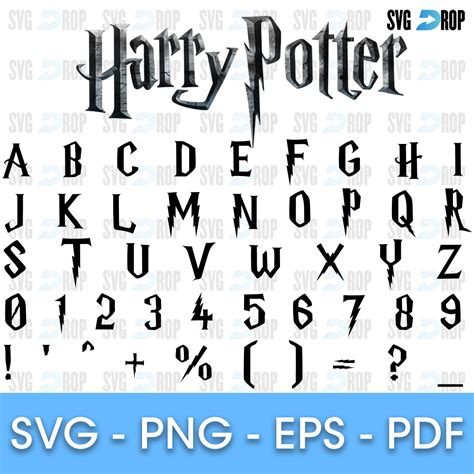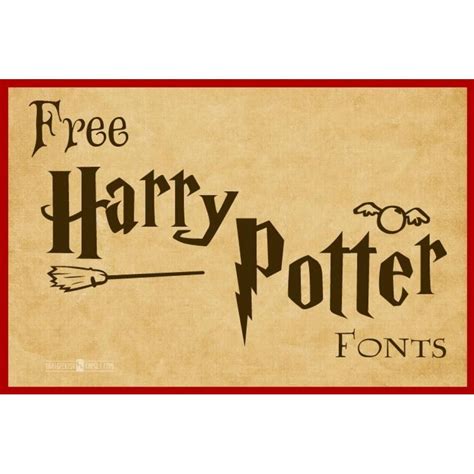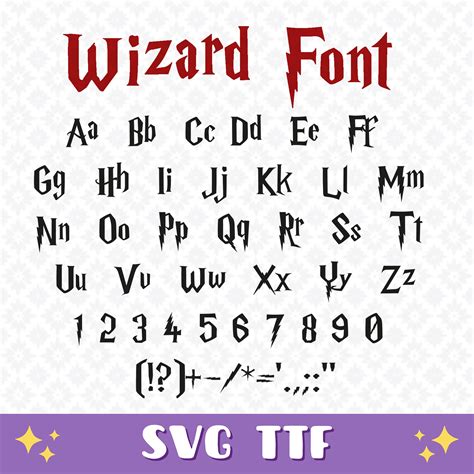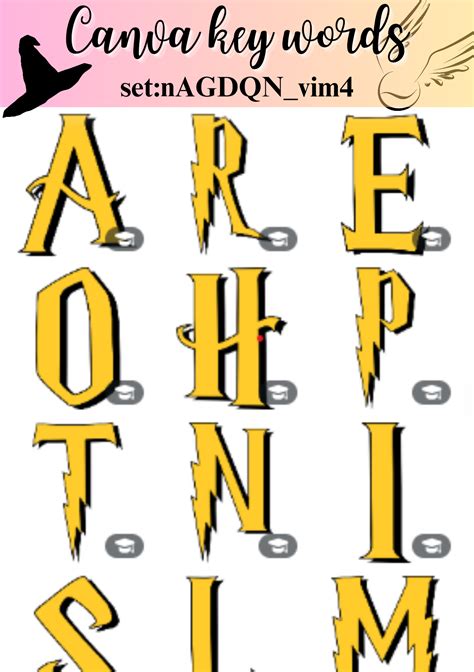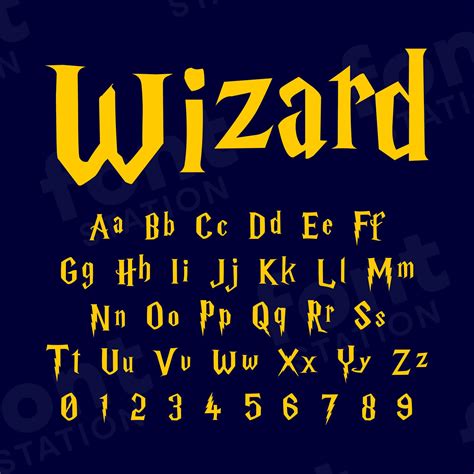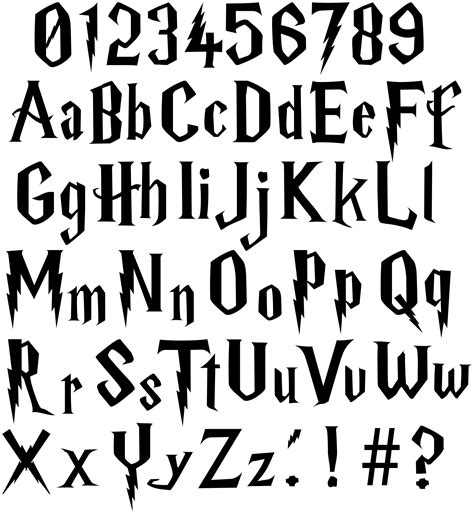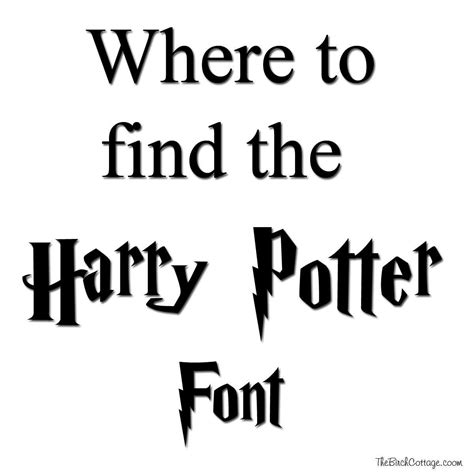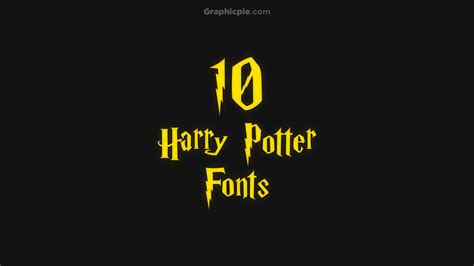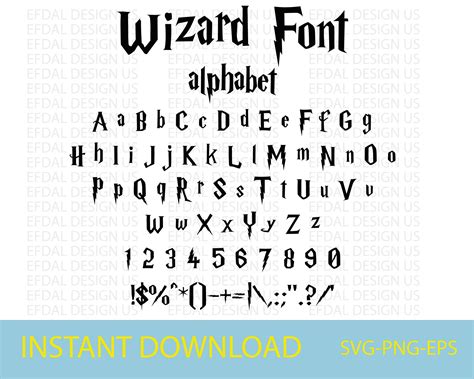
Immersing yourself in the magical world of Harry Potter is an experience that transcends the pages of the books and the screens of the movies. For fans, the allure of Harry Potter extends to every detail, including the fonts used in the series. Harry Potter fonts play a crucial role in capturing the essence of the magical universe, from the intricate designs on the covers to the whimsical text within the books. This blog post delves into the fascinating world of Harry Potter fonts, exploring their significance, types, and how you can incorporate them into your own projects.
The Significance of Harry Potter Fonts
The fonts used in the Harry Potter series are more than just typography; they are an integral part of the storytelling process. The choice of fonts helps to set the tone and atmosphere of the magical world, making the reading experience more immersive. From the elegant and mysterious scripts to the playful and whimsical designs, each font contributes to the overall aesthetic and narrative of the series.
One of the most iconic Harry Potter fonts is the one used on the book covers. This font, often referred to as the "Harry Potter logo font," features a distinctive, hand-drawn style that evokes a sense of magic and enchantment. The font is characterized by its ornate, flowing letters and intricate details, which give it a timeless and elegant appearance. This font has become synonymous with the series and is instantly recognizable to fans worldwide.
Types of Harry Potter Fonts
There are several types of Harry Potter fonts that have been used throughout the series, each serving a unique purpose. Here are some of the most notable ones:
- Harry Potter Logo Font: As mentioned earlier, this font is used on the book covers and is instantly recognizable. It features a hand-drawn, ornate style that captures the essence of the magical world.
- Harry Potter Chapter Headings Font: This font is used for the chapter headings within the books. It has a more playful and whimsical design, with flowing letters and intricate details that add to the magical atmosphere.
- Harry Potter Spell Font: This font is used for spells and incantations in the books. It features a mystical and enchanting design, with swirling letters and intricate patterns that give it a magical appearance.
- Harry Potter Title Font: This font is used for the titles of the books and chapters. It has a bold and elegant design, with flowing letters and intricate details that make it stand out.
Incorporating Harry Potter Fonts into Your Projects
If you're a fan of Harry Potter and want to incorporate Harry Potter fonts into your own projects, there are several ways to do so. Whether you're designing a website, creating a poster, or writing a fan fiction story, these fonts can add a touch of magic to your work. Here are some steps to help you get started:
Choosing the Right Font
The first step is to choose the right font for your project. Consider the tone and atmosphere you want to create and select a font that complements it. For example, if you're designing a website about the magical world, the Harry Potter logo font would be an excellent choice. If you're creating a poster for a Harry Potter-themed event, the Harry Potter chapter headings font could add a whimsical touch.
Here is a table of some popular Harry Potter fonts and where you can find them:
| Font Name | Description | Where to Find |
|---|---|---|
| Harry P | A font inspired by the Harry Potter logo, featuring a hand-drawn, ornate style. | Various font websites |
| Harry P Chapter | A playful and whimsical font used for chapter headings in the Harry Potter books. | Various font websites |
| Harry P Spell | A mystical and enchanting font used for spells and incantations in the Harry Potter series. | Various font websites |
| Harry P Title | A bold and elegant font used for the titles of the Harry Potter books and chapters. | Various font websites |